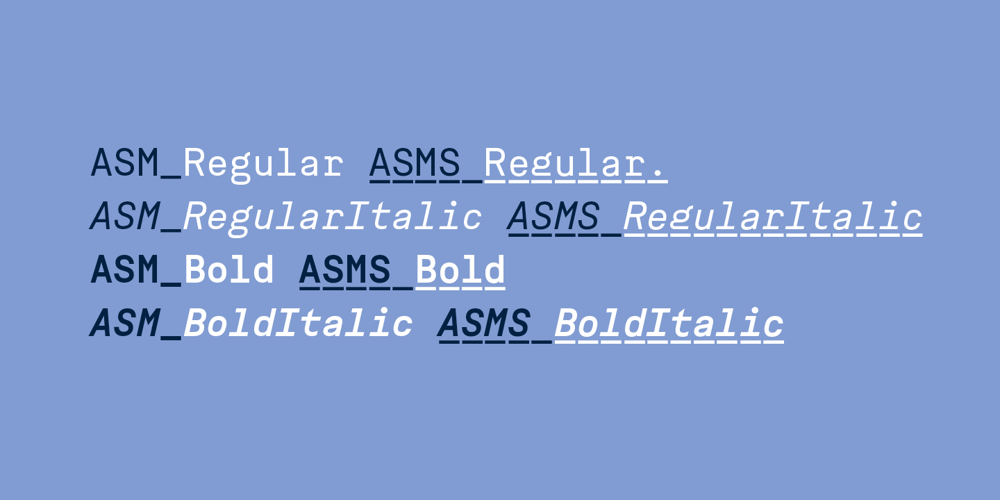
ASM font
ASM Font Family was designed by Íñigo Jerez and published by Extratype. ASM contains 8 styles and family package options. The initials ASM represent the acronym of the Santa Monica Arts cultural center located in Barcelona, Spain, where this typeface, with the same name, has served as the custom corporate typeface since 2008 till today (2013). ASM is an energetic monospaced with extreme legibility consisting of two original weights, with an underlined version – used on some of corporate applications – all with their corresponding italics.